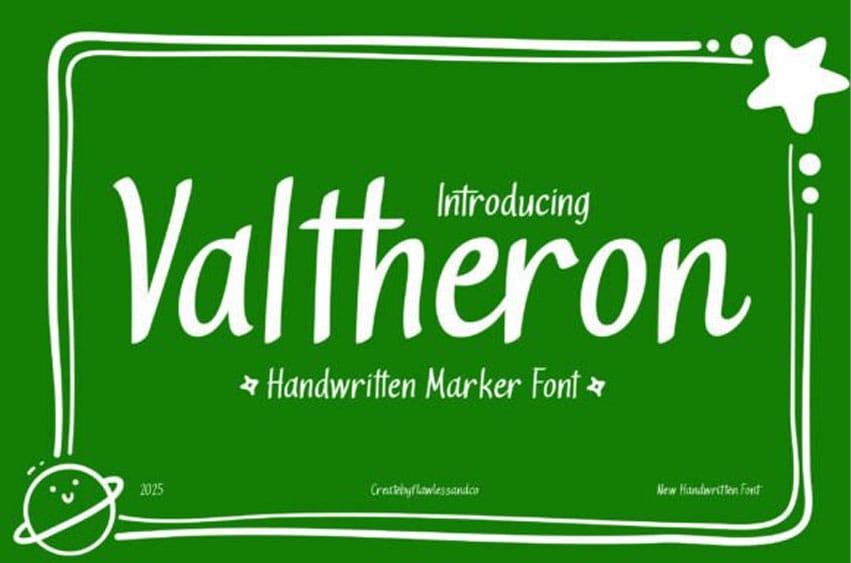
Valtheron Font is a playful and expressive handwritten marker font that captures the energy of casual doodles and authentic handwritten notes. With its slightly slanted strokes and smooth curves, Valtheron brings an approachable and cheerful personality to every project.
Whether you’re creating a fun educational worksheet, a creative website header, or branding for a casual product, this font adds that human, hand-crafted charm.